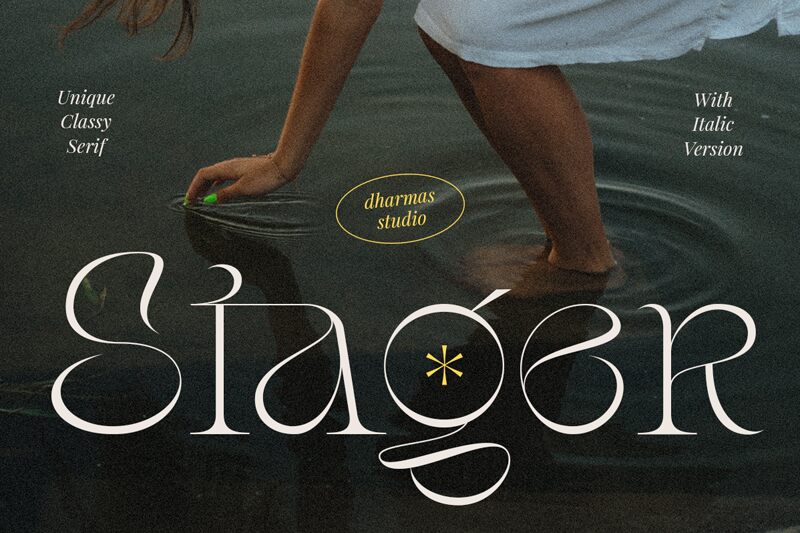
Stager, designed by Dharmas Studio, is an extraordinary display font with a retro twist. Its extra-light weight gives it a delicate and elegant appearance, perfect for adding a touch of nostalgia to your designs.
The Stager font is suitable for various creative projects such as vintage logo designs, album covers, wedding invitations, and retro-themed websites. With its unique style and subtle sophistication, Stager will transport your audience back in time while giving your work a modern edge.